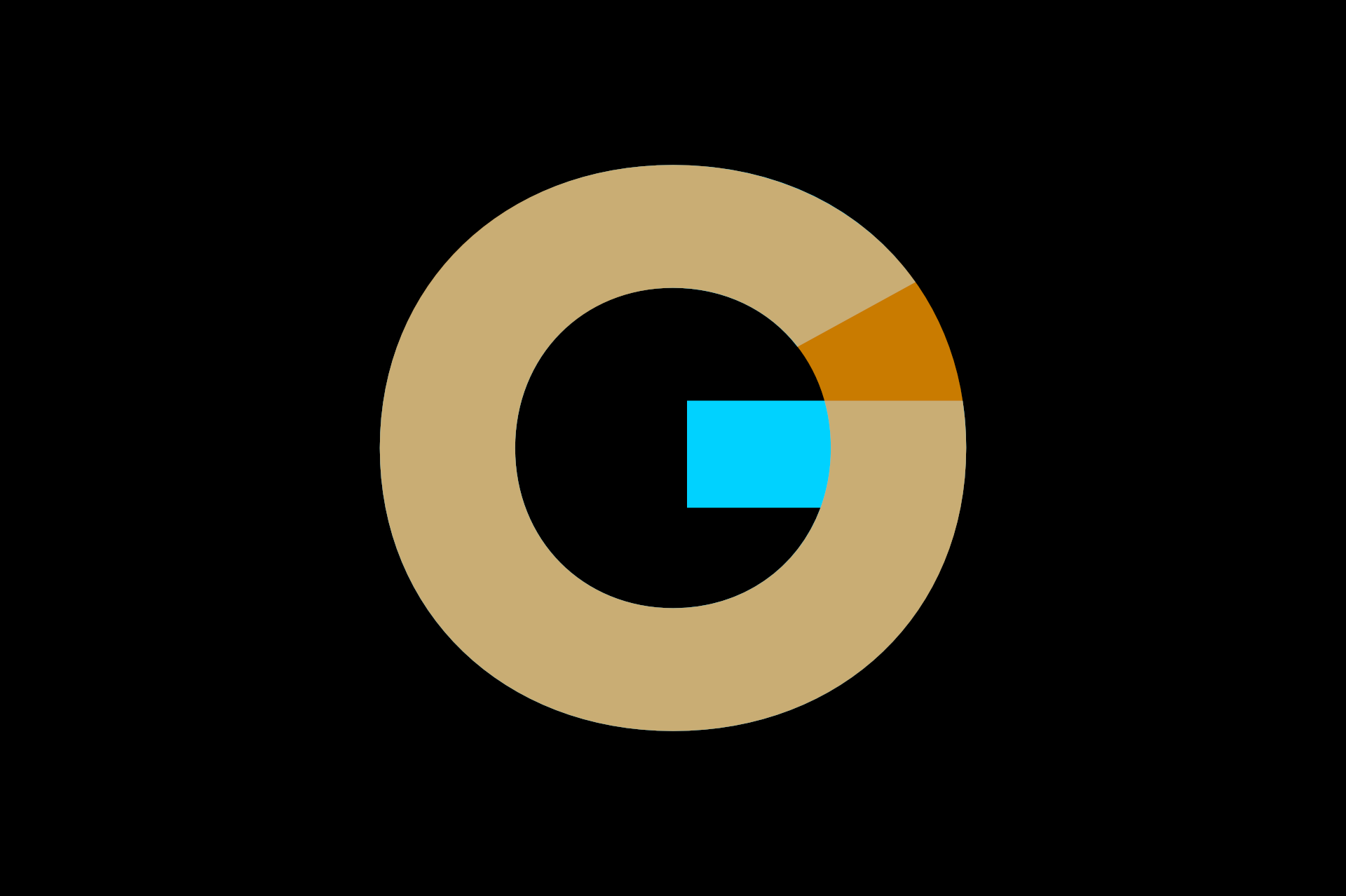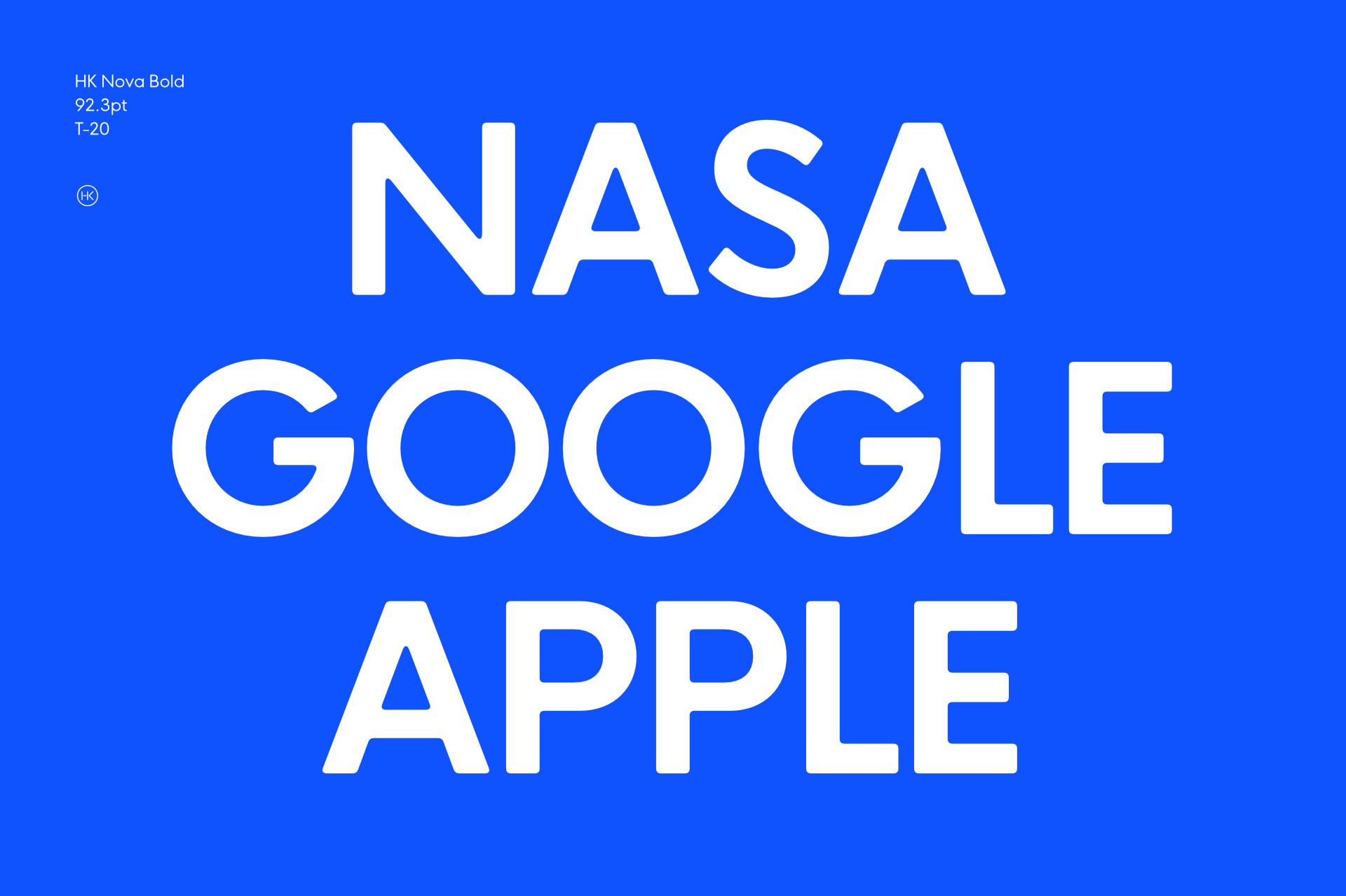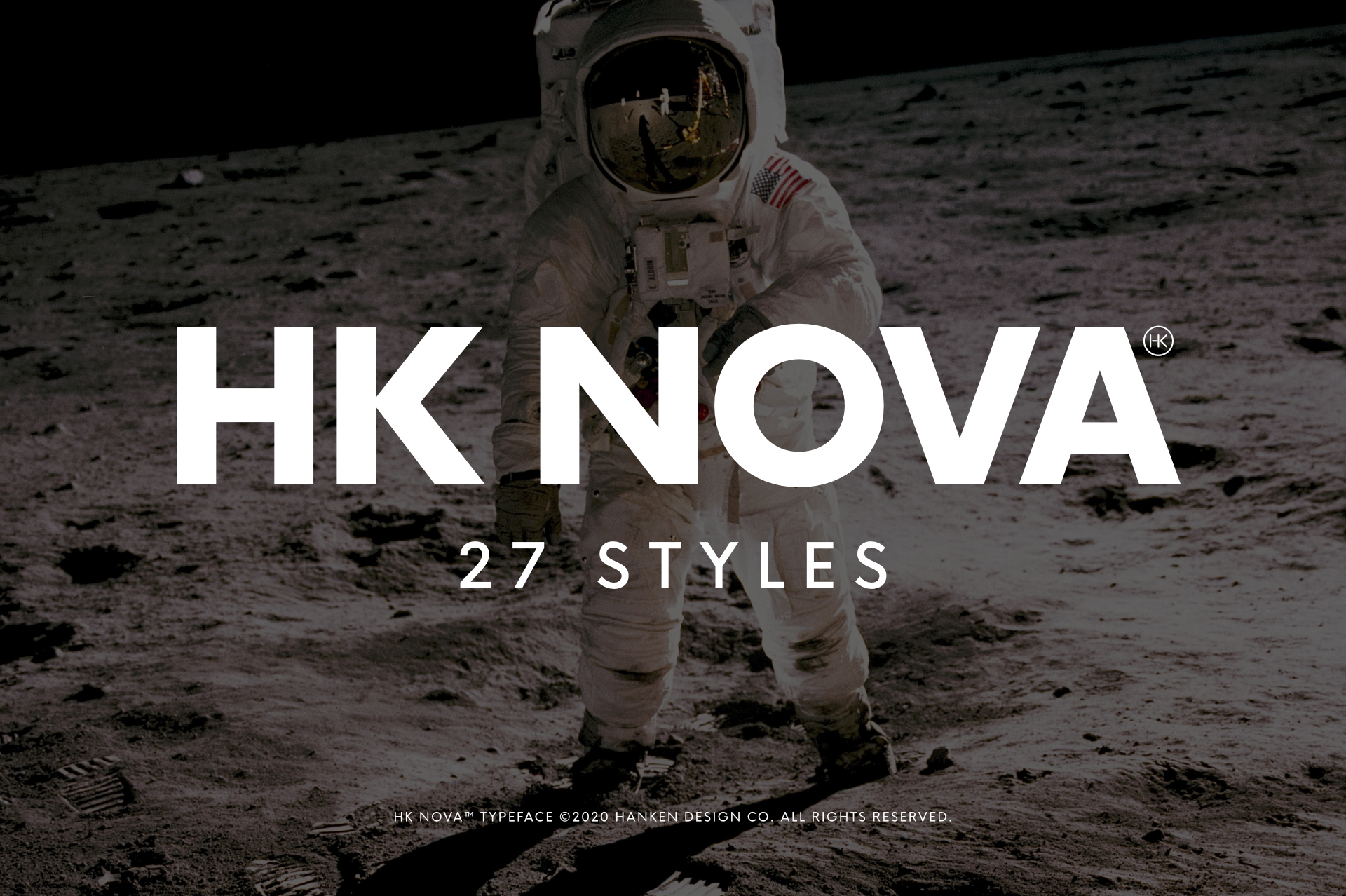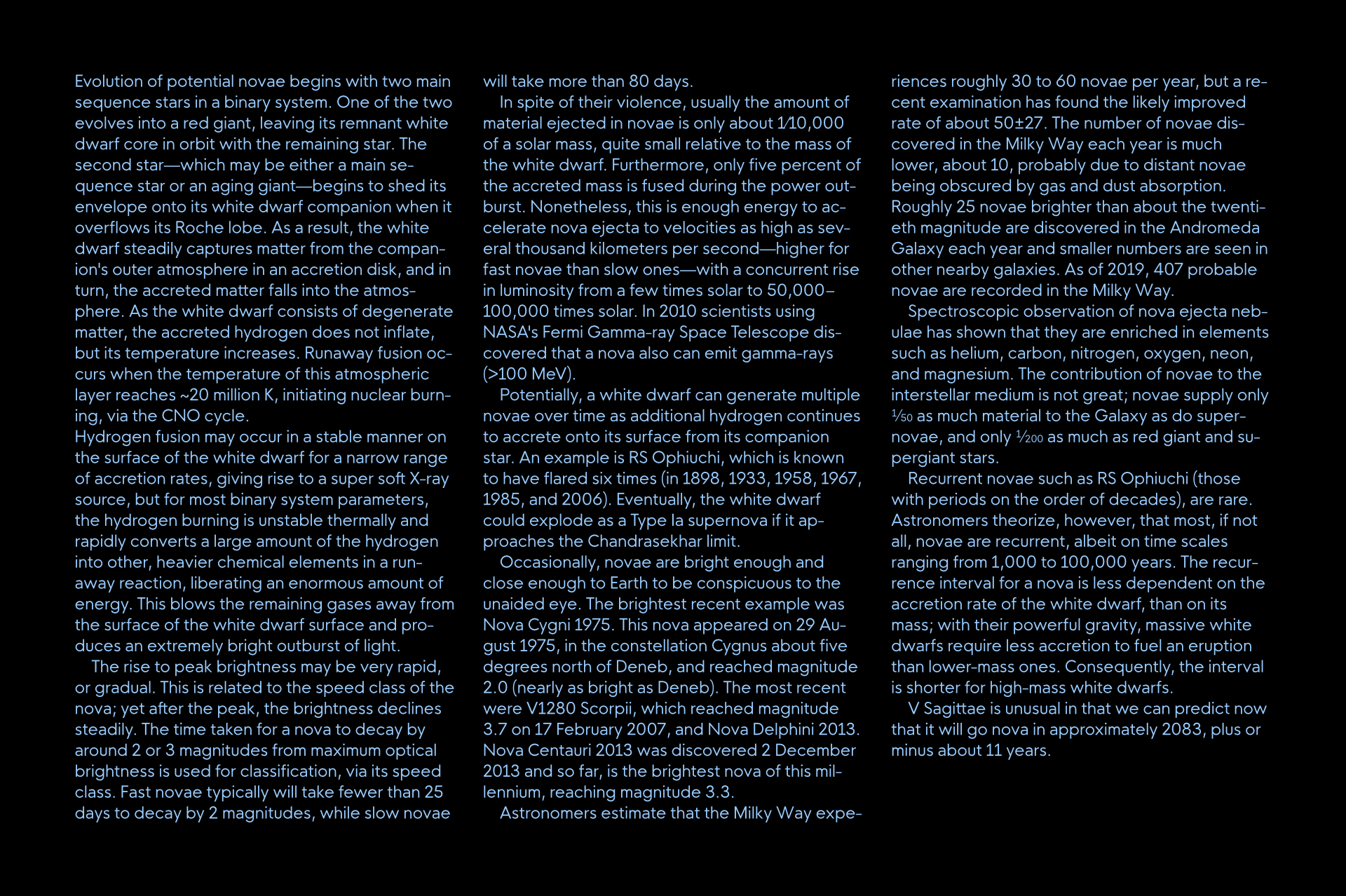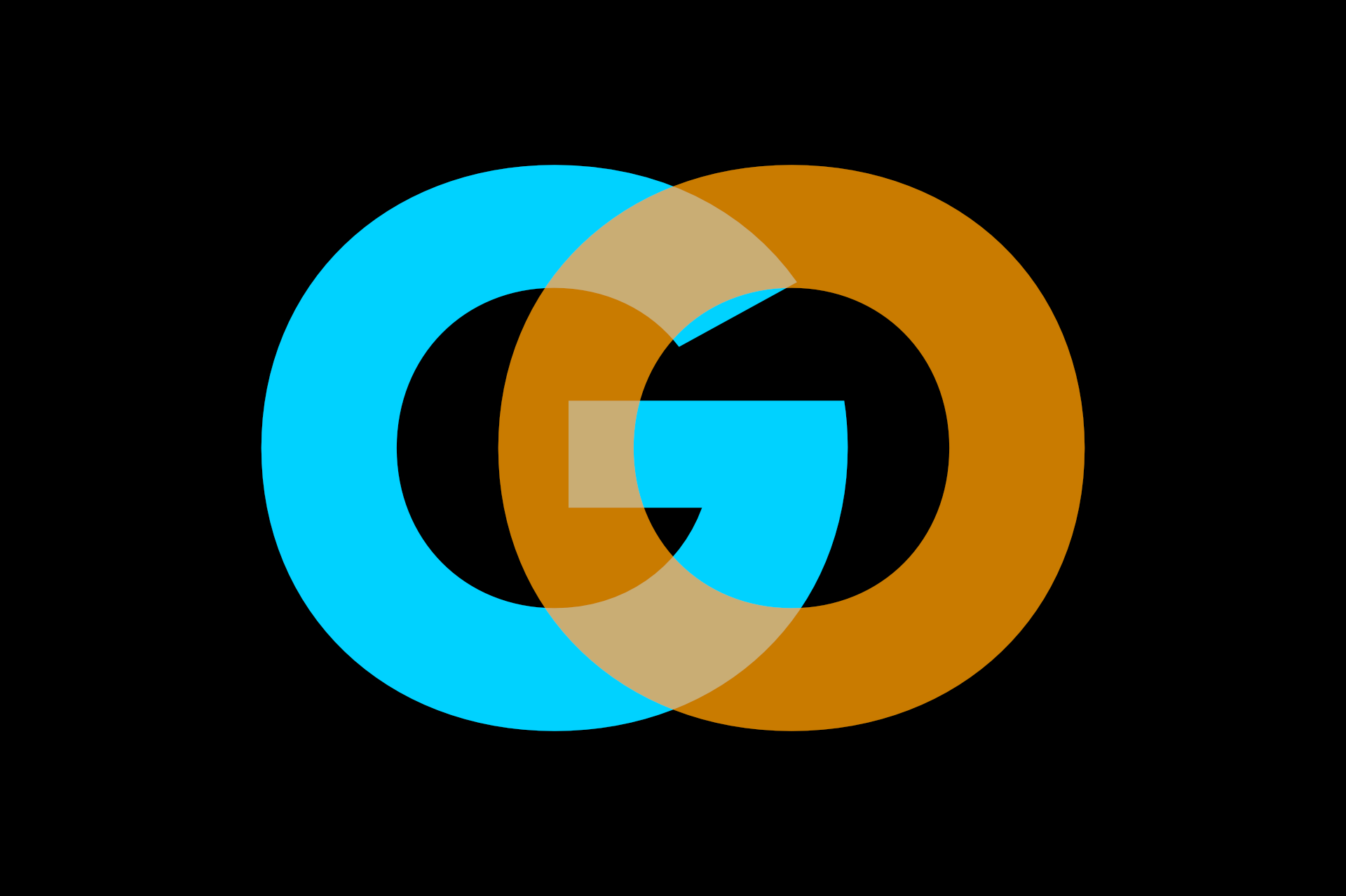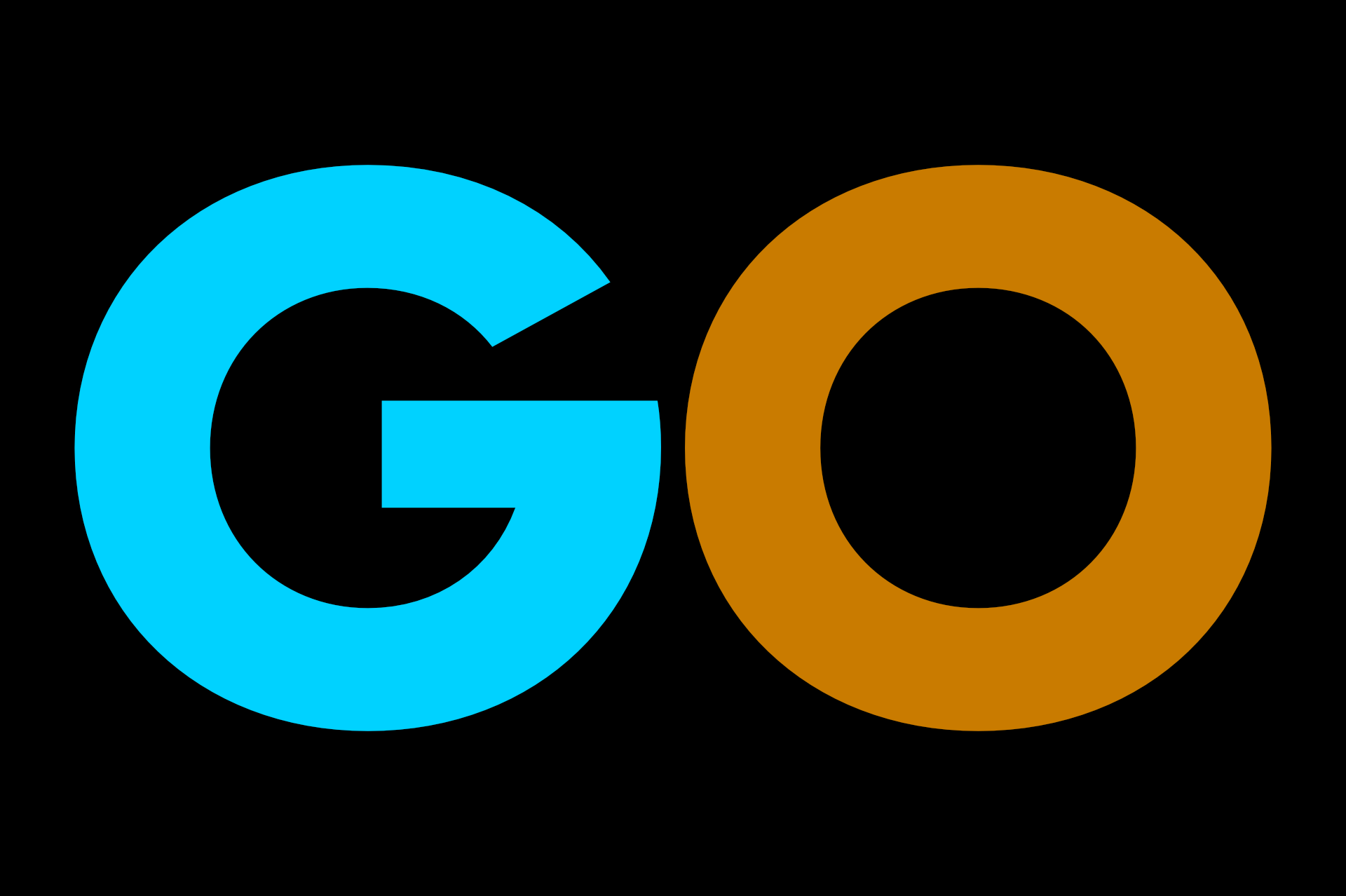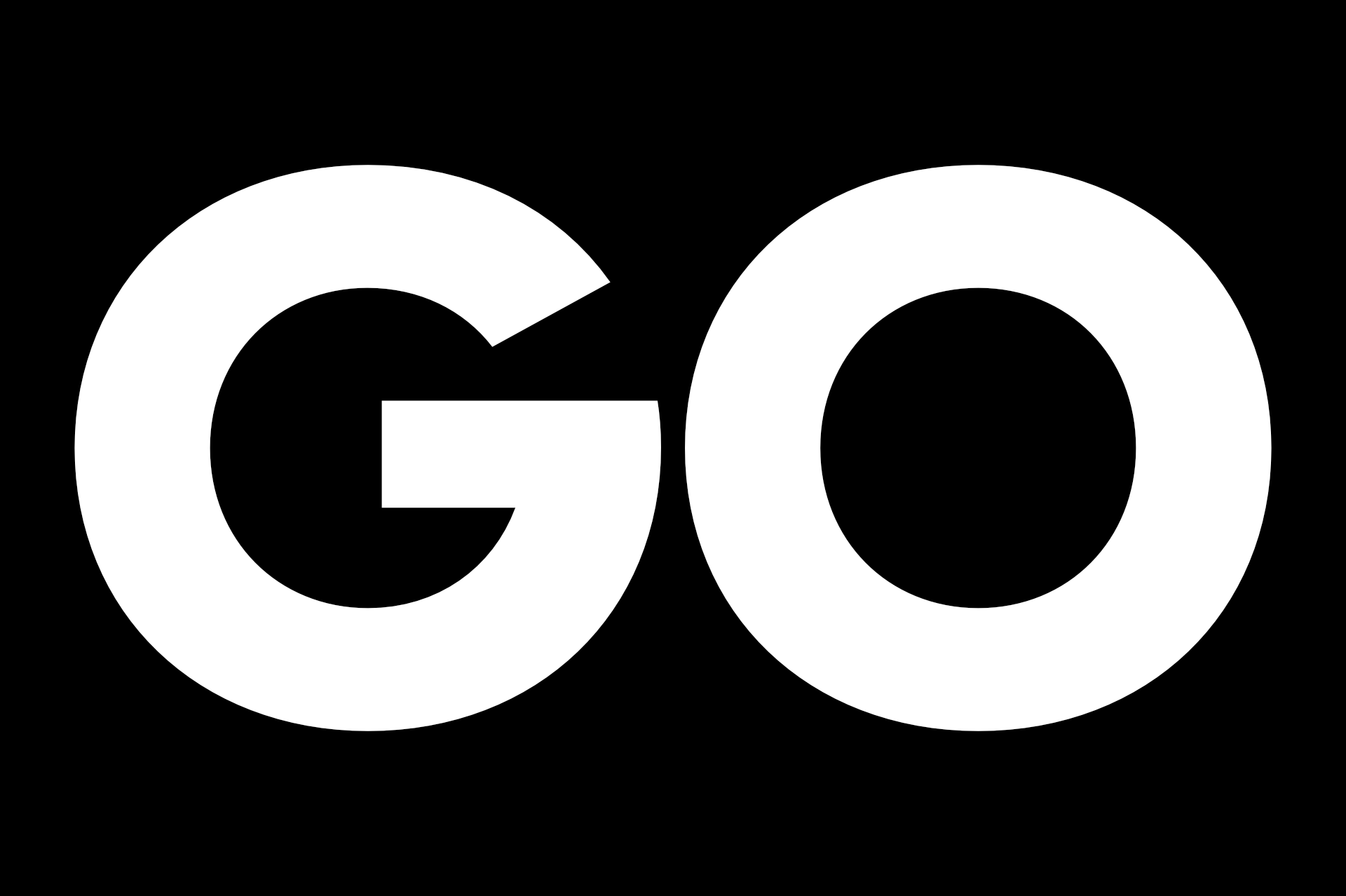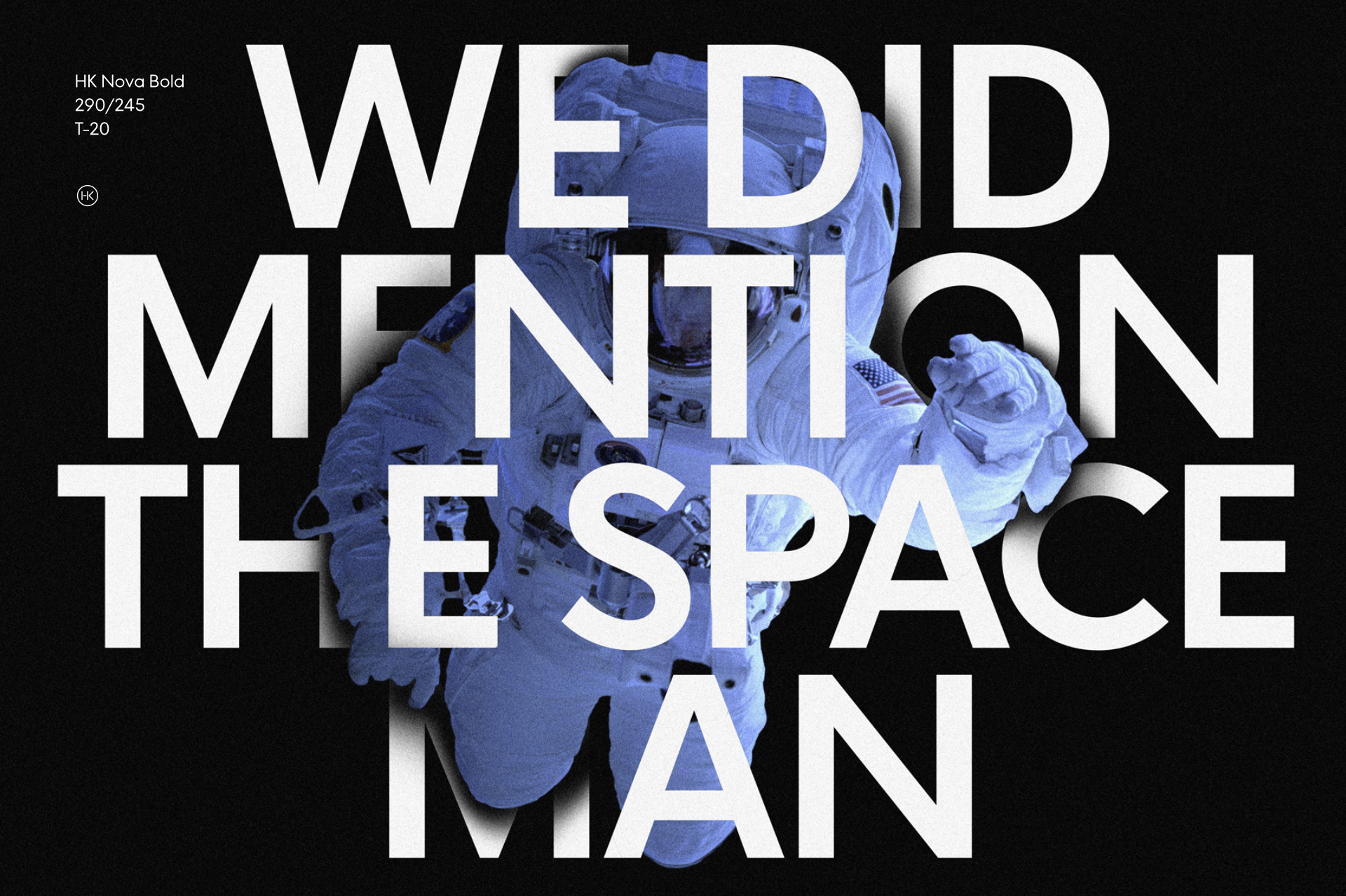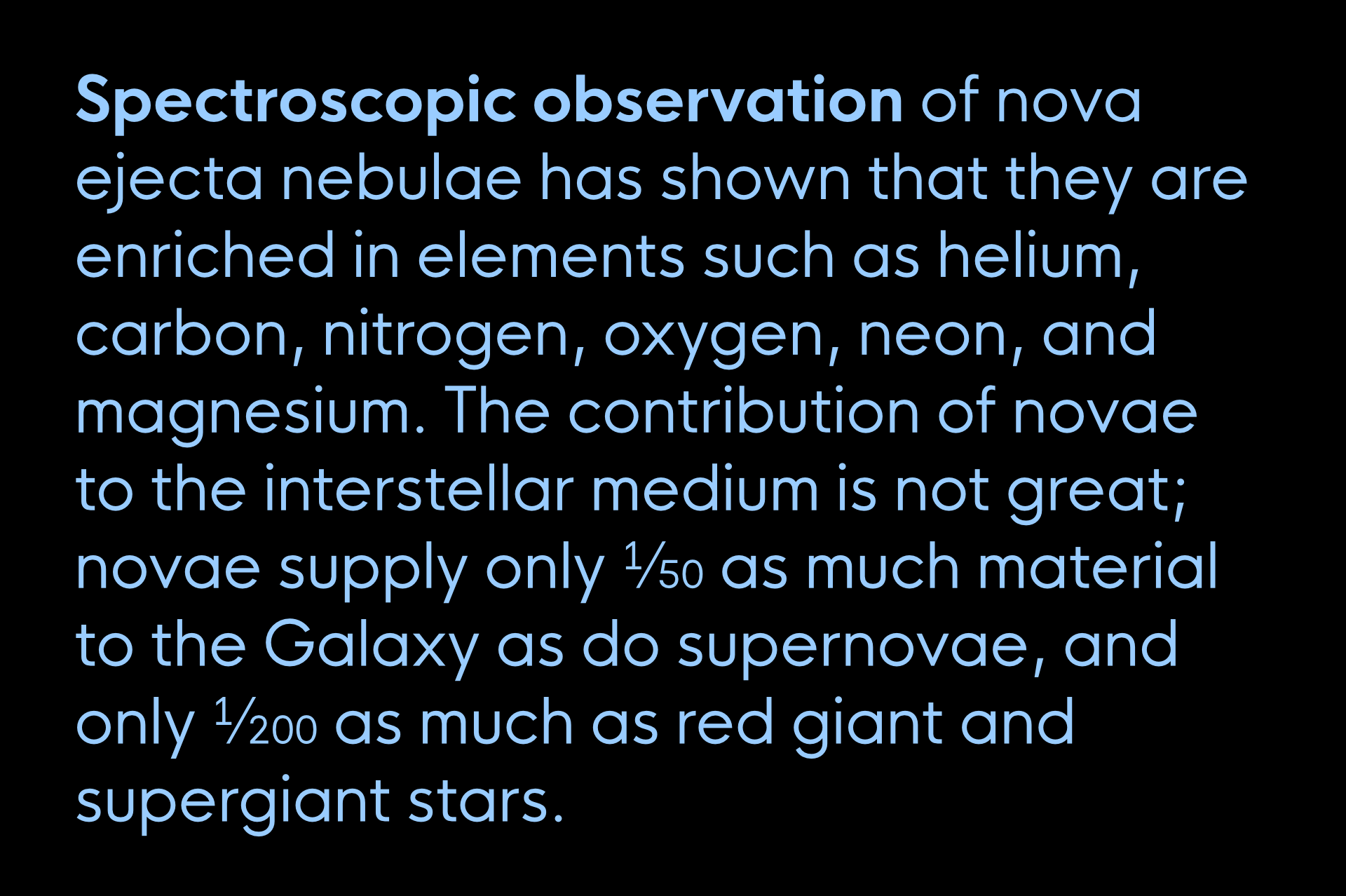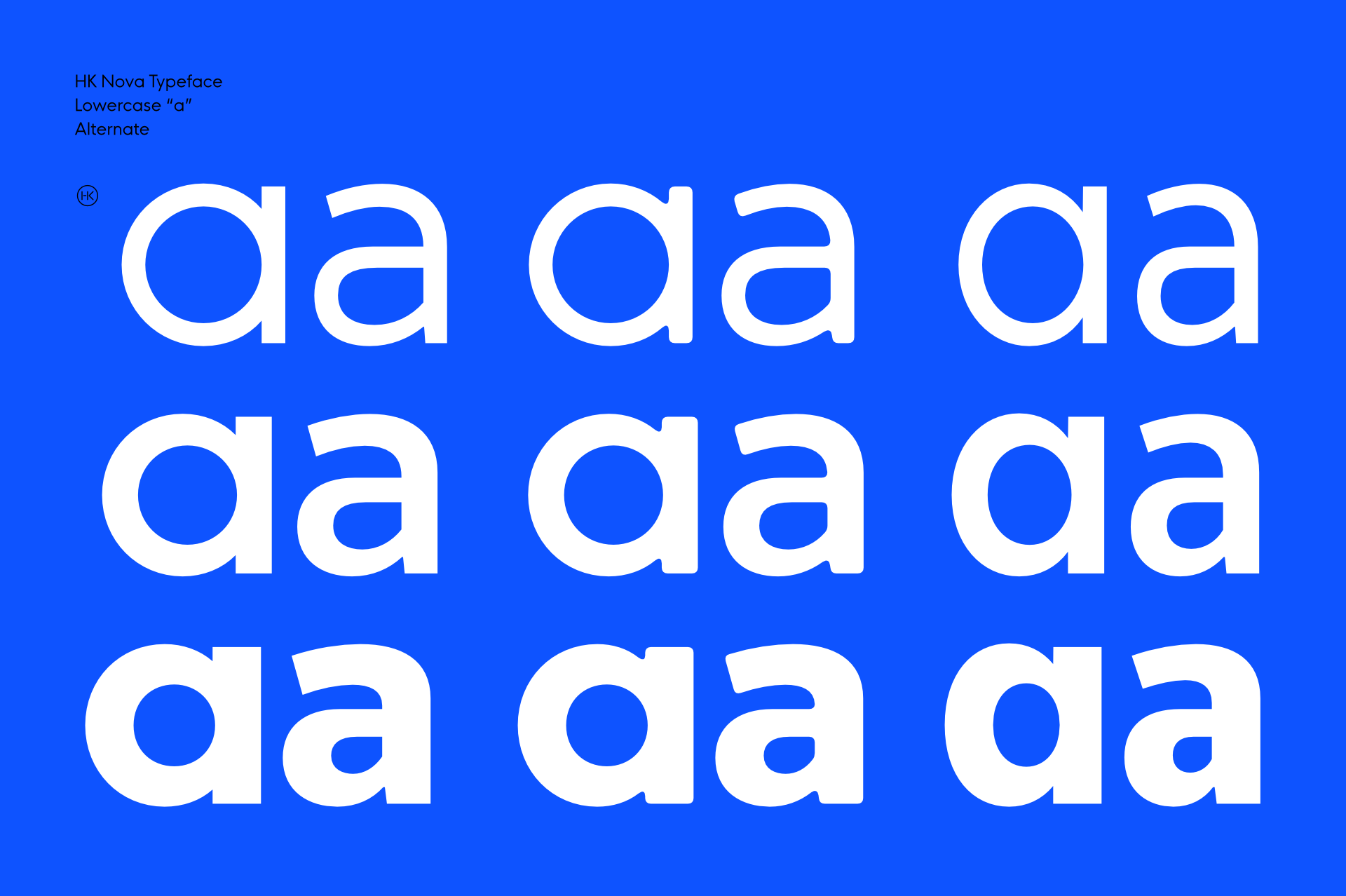
HK Nova™ is a sans serif typeface with 3 versions (Standard, Rounded and Narrow) that is inspired by the geometric Century Gothic and Futura. It formalizes Century Gothic and softens Futura to form a highly usable hybrid typeface.
Design+Development: Alfredo Marco Pradil
Company: Hanken Design Co.
Class: Sans Serif, Geometric